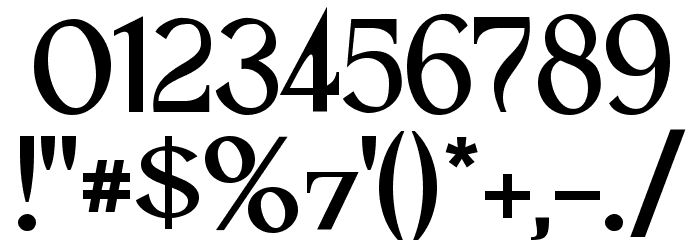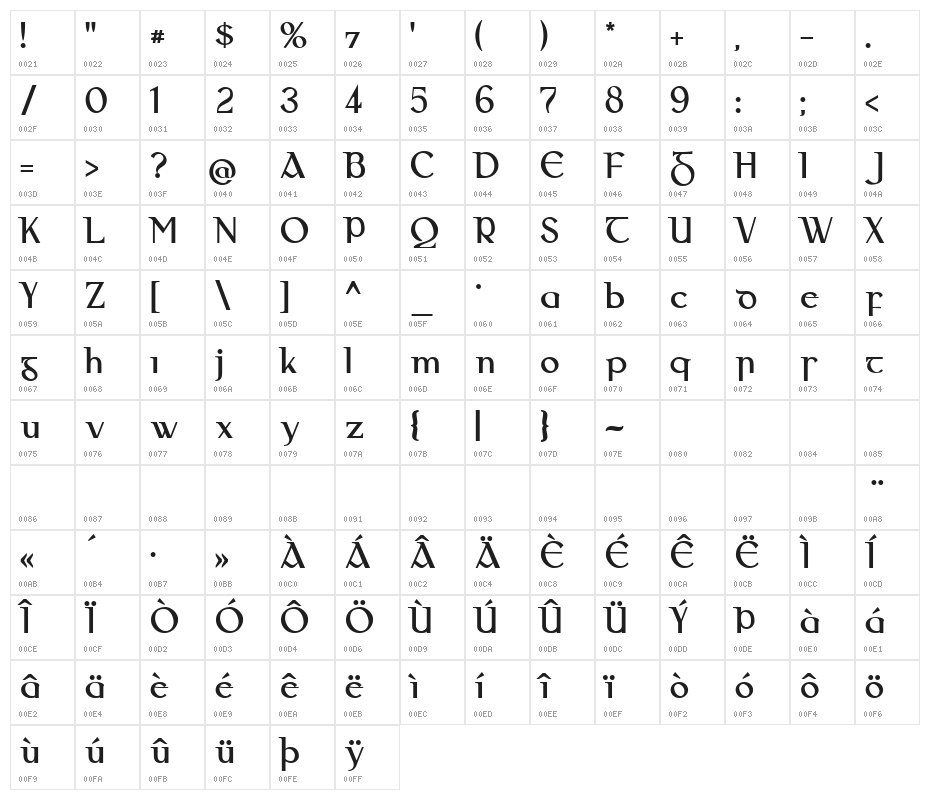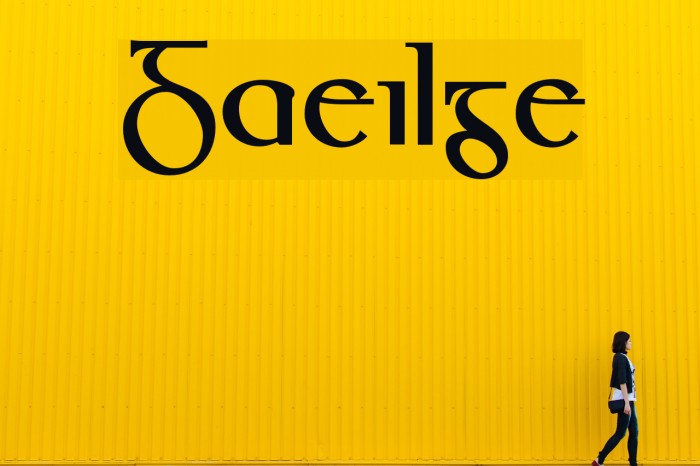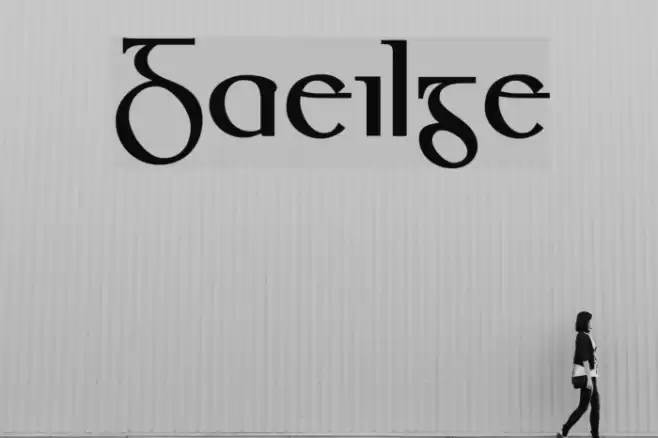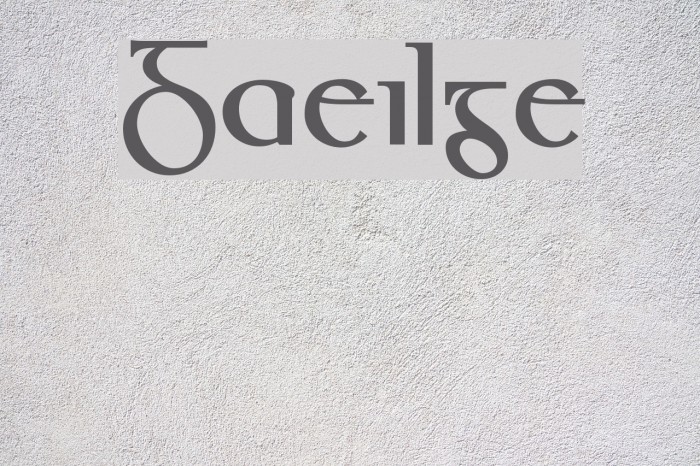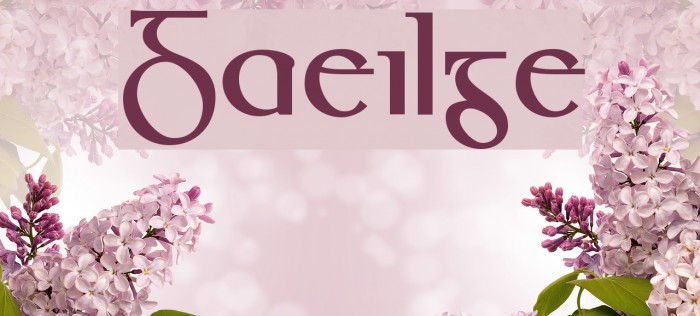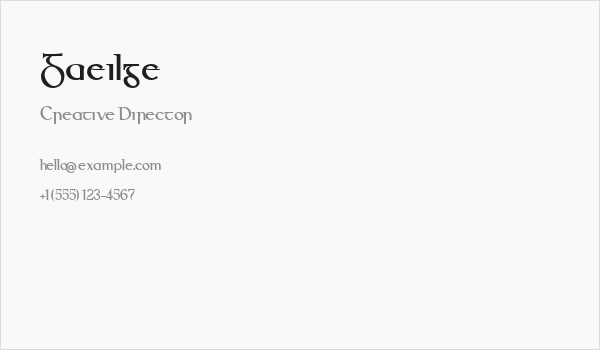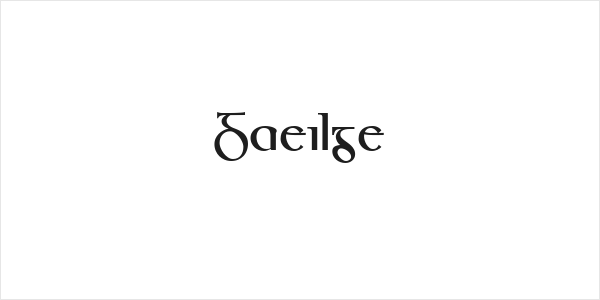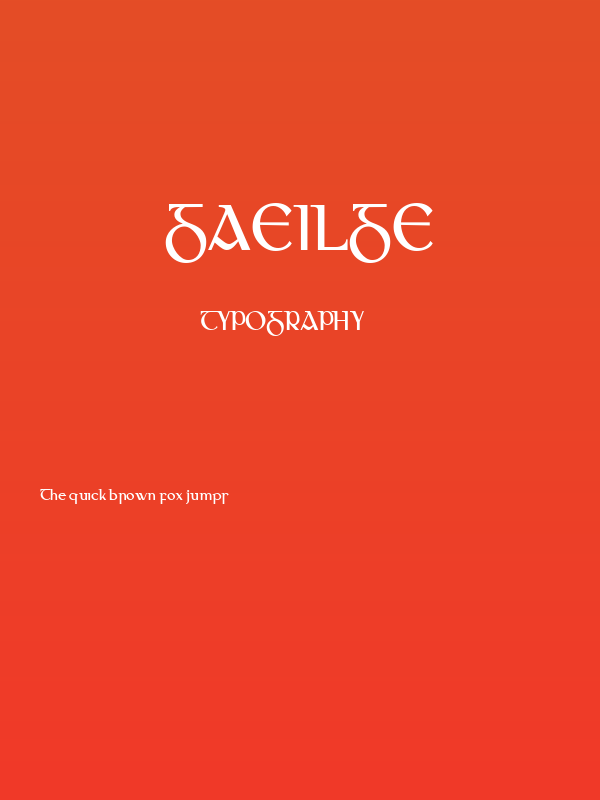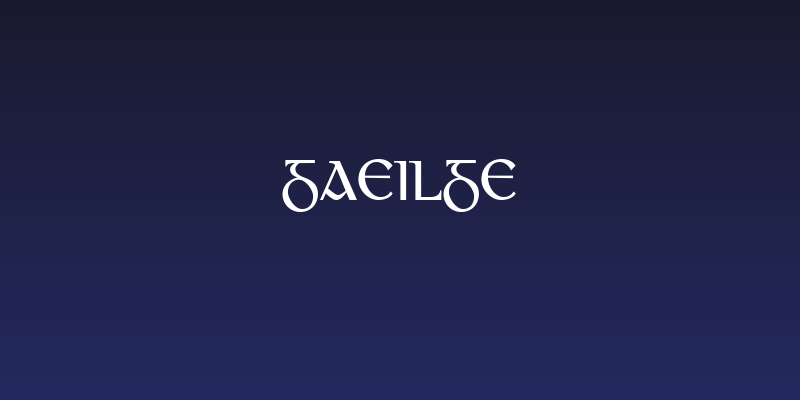
Gaeilge Font
Gaeilge Description
This font features a unique blend of traditional and modern elements, characterized by its distinctively sharp serifs and slightly curved strokes. The uppercase letters exhibit a strong presence with their bold and angular design, while the lowercase letters maintain a harmonious flow with subtle curves. The numerals are consistent with the overall style, offering a clear and legible appearance. Special characters are thoughtfully designed to complement the alphabet, ensuring versatility in various design contexts. The font's overall aesthetic is both classic and contemporary, making it suitable for a wide range of applications.
| Use Case | Headlines, Logos, Editorial design |
| Proposed Projects | Ideal for branding, editorial design, and signage where a touch of elegance and tradition is desired. |